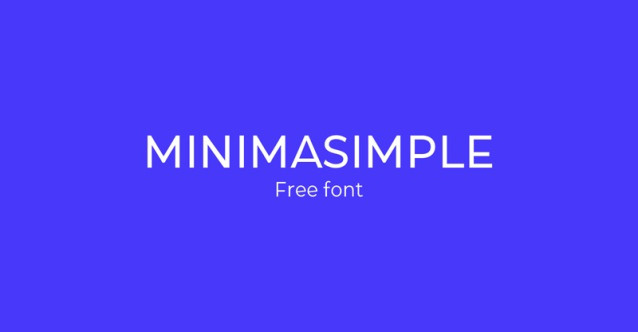
Minimasimple Font, perfectly fit for branding, logo, wedding things, greeting cards, fashion, lookbook, marketing promotion, anytime you want to look fancy elegant but still casual.
Minimasimple Font